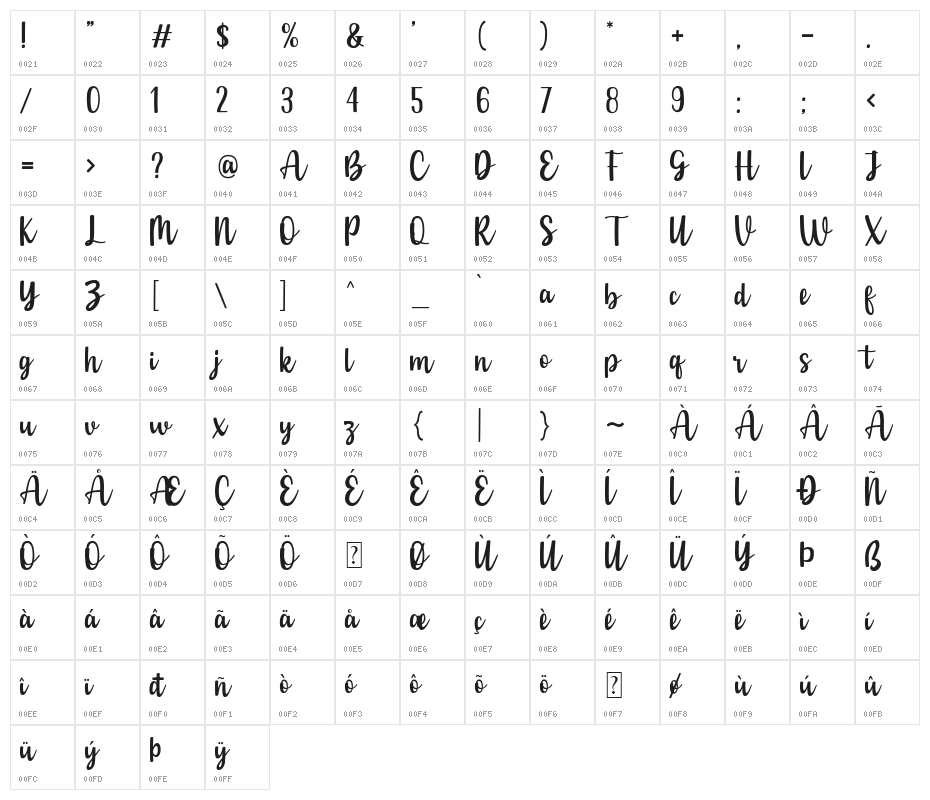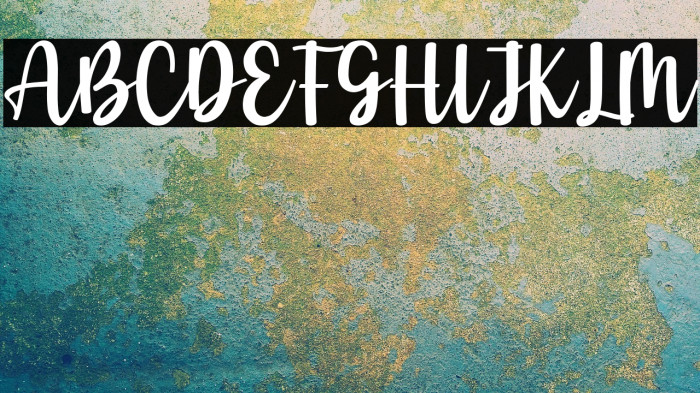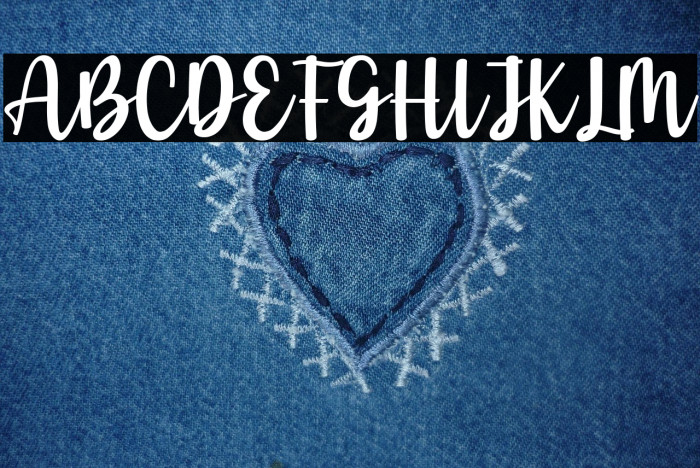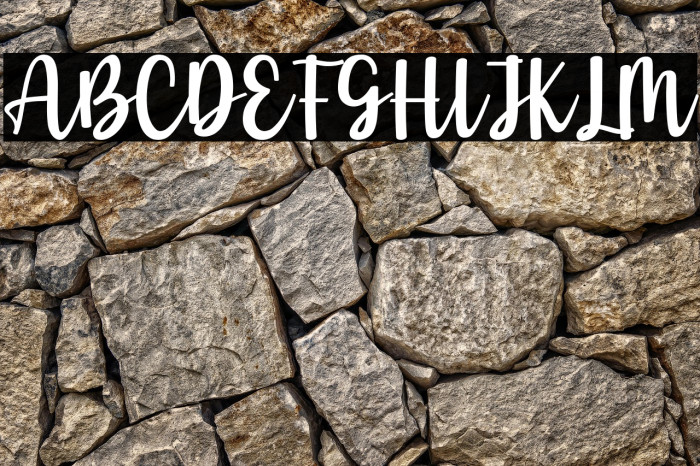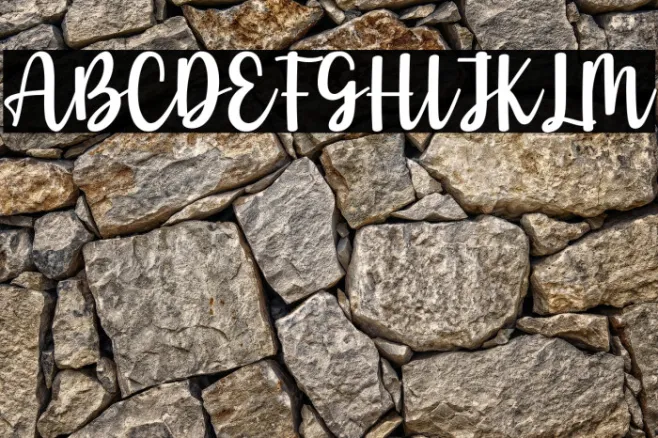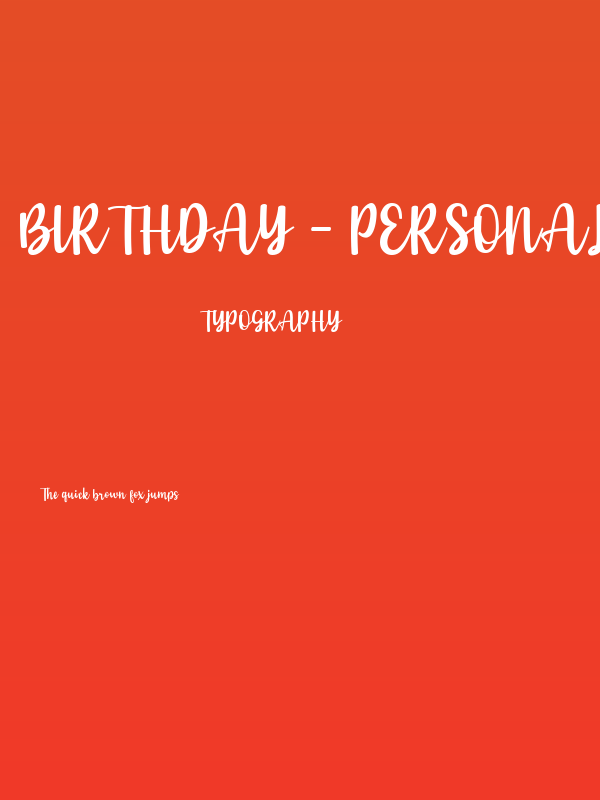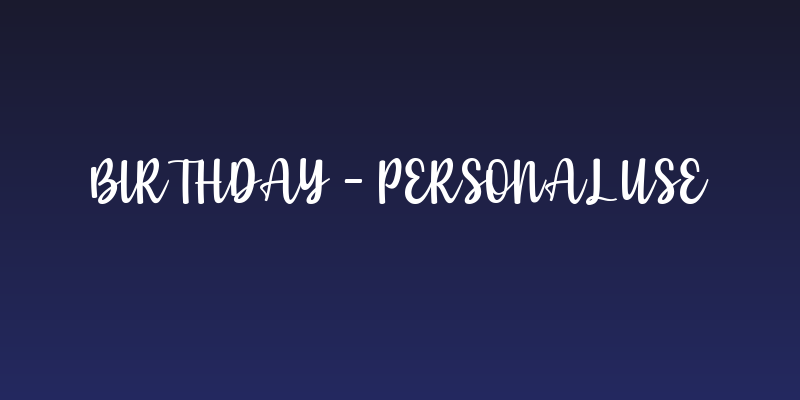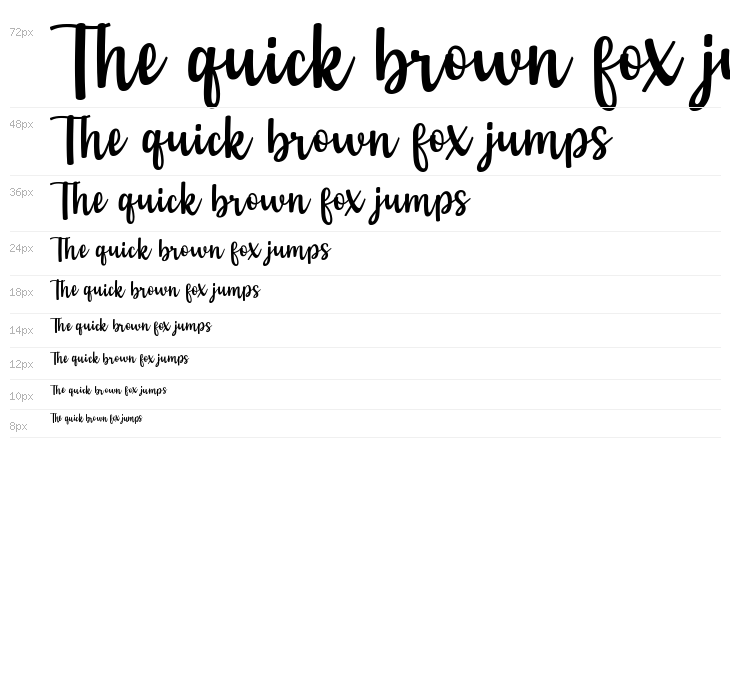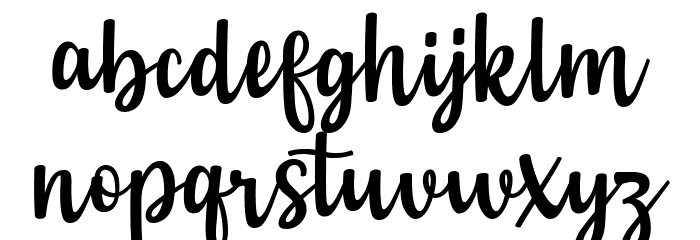
Birthday - Personal Use Font
Birthday - Personal Use Description
This font features a playful and energetic script style with a handwritten appearance. The characters are bold and fluid, with a consistent stroke width that gives a lively and dynamic feel. The uppercase letters are slightly larger and more pronounced, while the lowercase letters maintain a smooth and flowing connection. The numbers and special characters are designed to match the overall whimsical style, making them suitable for creative and informal applications. The font's design is ideal for projects that require a personal touch, such as invitations, greeting cards, and decorative headlines.
| Proposed Projects | Ideal for invitations, greeting cards, decorative headlines, and personal projects. |